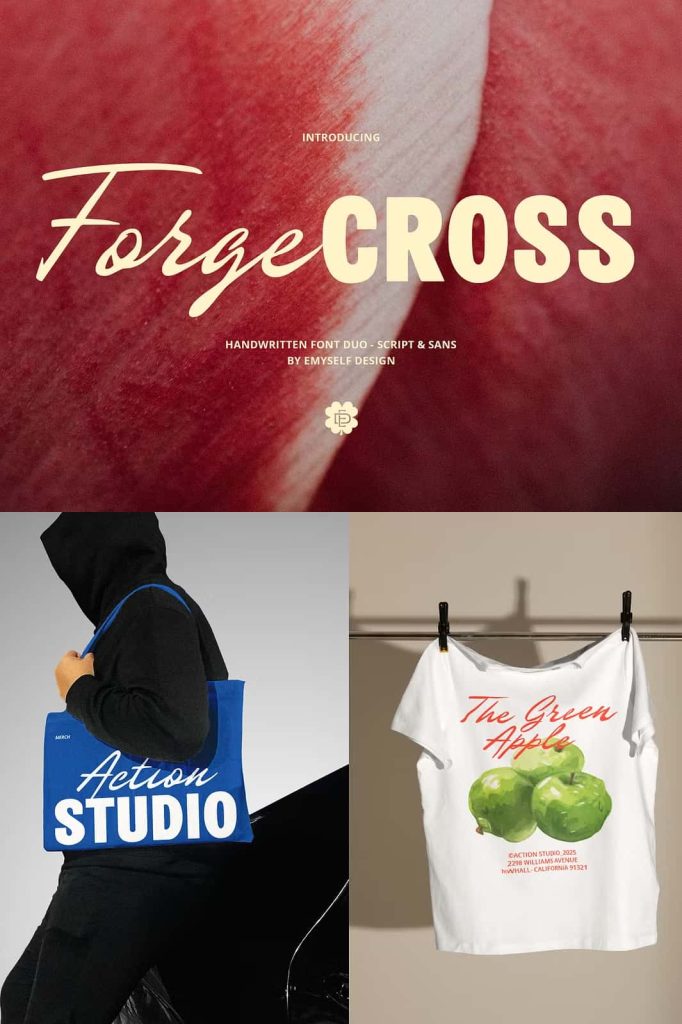
ED Forge Cross is a versatile duo font that combines the charm of a handwritten script with the bold confidence of a clean sans serif. Designed to create a perfect balance between elegance and strength, this duo font gives you the flexibility to mix and match styles in your projects.